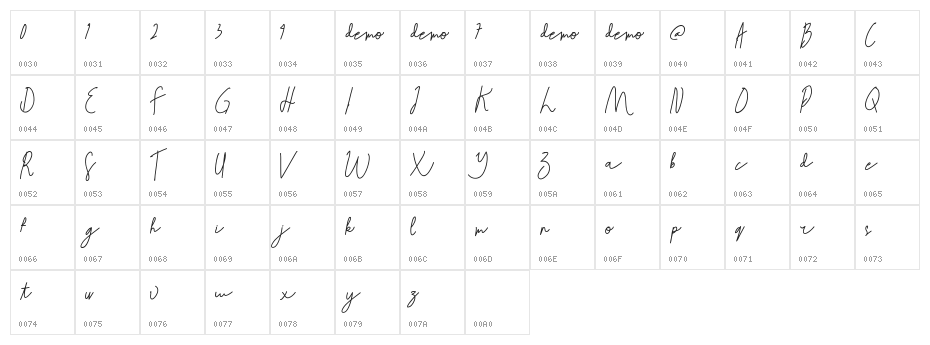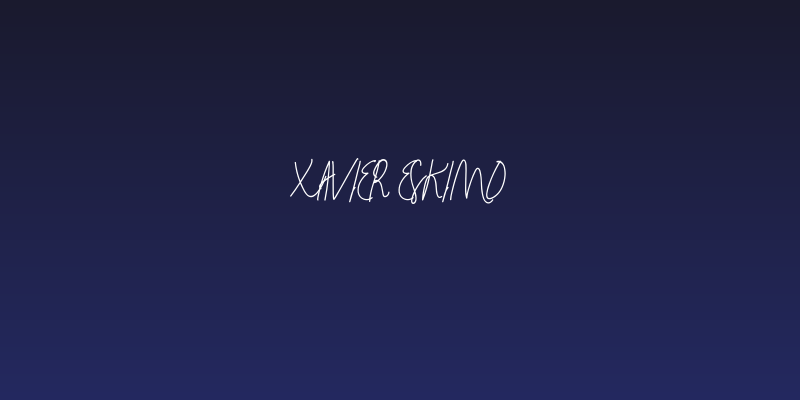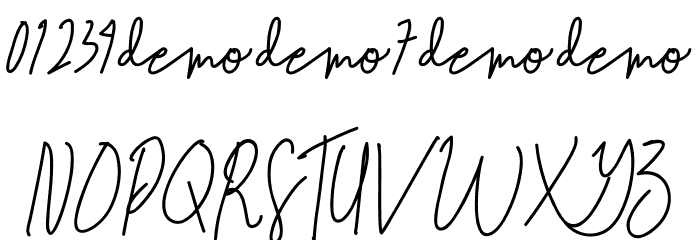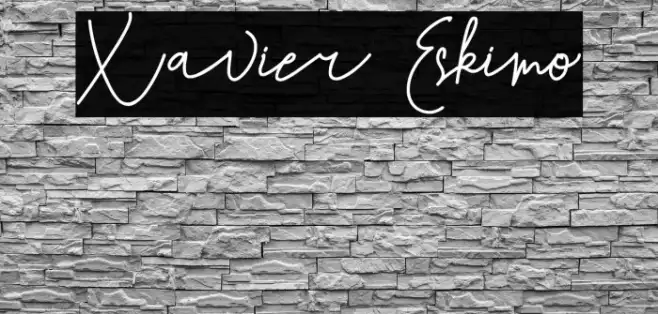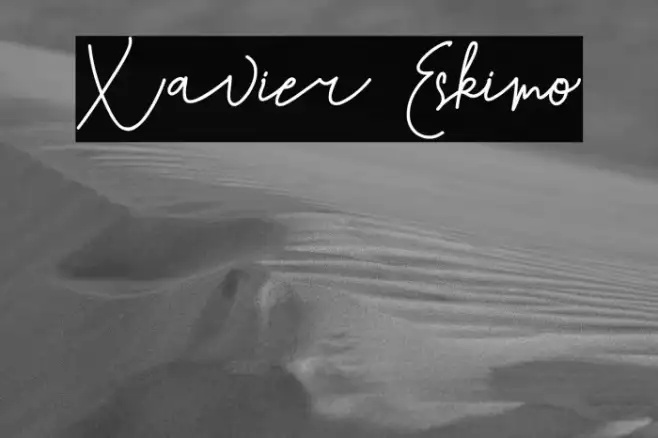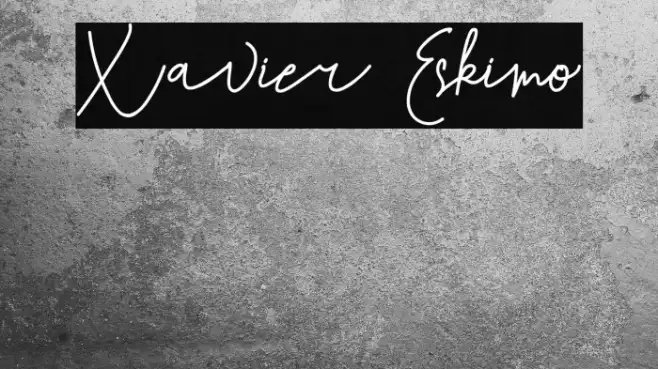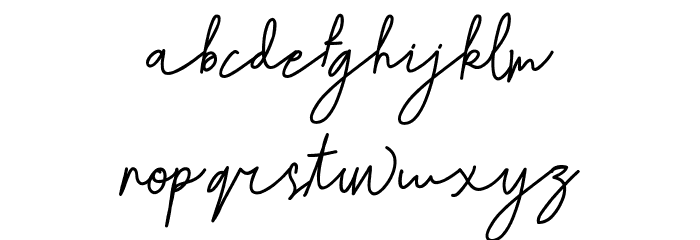
Xavier Eskimo Font
Xavier Eskimo Description
This font features a flowing, handwritten style with a casual and elegant appearance. The letters are connected in a cursive manner, giving it a seamless and fluid look. The uppercase letters are tall and slender, while the lowercase letters maintain a consistent flow with slight variations in height and slant. The numbers and special characters complement the overall style, maintaining the same handwritten aesthetic. This font exudes a personal touch, making it ideal for projects that require a human element.
| Overall Style | Casual, Elegant |
| Use Case | Logos, Invitations, Personal Branding |
| Proposed Projects | Ideal for wedding invitations, personal branding, greeting cards, and creative projects that require a personal touch. |